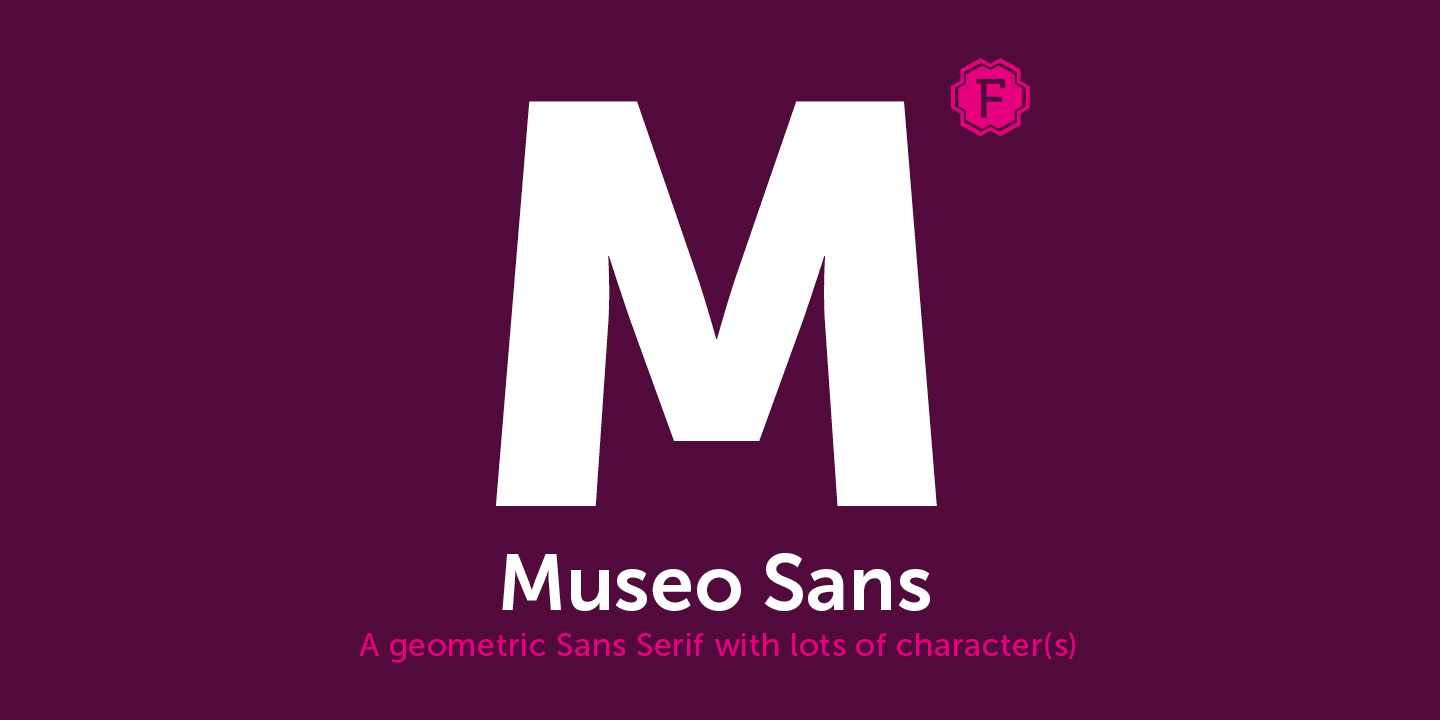
Museo Sans Font is ideal for museum exhibitions, cultural institution branding, art gallery materials, educational displays, corporate presentations, professional websites, contemporary signage systems, academic publications, cultural event promotions, and sophisticated marketing communications. This refined sans-serif typeface brings institutional authority and cultural sophistication to distinguished design applications.
What makes Museo Sans Font so exciting is its perfect embodiment of institutional excellence and cultural authority through carefully balanced letterforms that communicate knowledge, credibility, and sophisticated presentation standards. The font features elegantly proportioned characters with subtle humanistic qualities and refined geometric construction that ensures exceptional readability across all media while maintaining the dignified appearance expected in cultural and educational environments. Its distinctive characteristics include optimized proportions, precise spacing, and sophisticated character relationships that create immediate sense of scholarly authority and cultural refinement. The font's association with prestigious institutions and proven performance in demanding intellectual environments make Museo Sans Font the preferred choice for organizations seeking to communicate expertise, tradition, and educational excellence.
The Museo Sans Font family includes comprehensive weights and styles: Light, Regular, Medium, Bold, and Black variations, each available in upright and italic versions. The extensive character set encompasses complete Latin alphabet support with scholarly symbols, mathematical operators, academic punctuation marks, currency symbols, and broad international language coverage including Central European characters. Professional features include contextual alternates that enhance institutional presentation, optical adjustments for different reading environments, expert spacing for both display and text applications, and refined character details that maintain quality across all reproduction methods and digital platforms.
Whether you're creating cultural exhibitions, educational materials, or institutional communications, Museo Sans Font Free Download provides the authoritative typography that elevates intellectual discourse and cultural presentation to the highest professional standards. Its exceptional versatility makes it suitable for both large-scale environmental graphics and detailed academic texts, while its sophisticated character ensures credible presentation that resonates with educated audiences. The font's combination of cultural authority and contemporary functionality makes it indispensable for museums, universities, cultural organizations, and any institution seeking typography that communicates scholarly excellence, cultural sophistication, and the enduring values of education and knowledge preservation that define distinguished academic and cultural institutions worldwide.